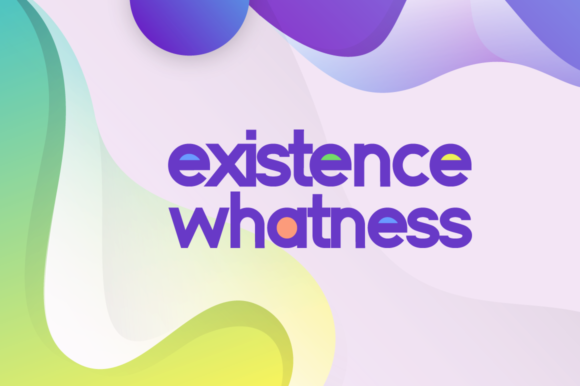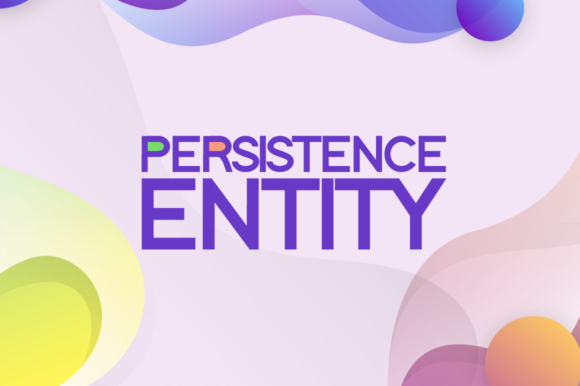
Introducing Breath Font: The Cute and Modern Display Font for Creative Projects
Are you a designer, crafter, or DIY enthusiast looking for a font that can add a touch of friendliness and modernity to your creative projects? Look no further than Breath Font! This adorable display font is perfect for a wide range of applications, from Instagram posts and social media graphics to calligraphy scripts and handmade crafts.
What is Breath Font?
Breath Font is a carefully crafted display font that exudes a sense of friendliness and approachability. Its modern design and cute aesthetic make it an ideal choice for anyone looking to add a personal touch to their creative projects. Whether you’re a professional designer or a crafty DIY enthusiast, Breath Font is sure to inspire your next creative endeavor.
Key Features of Breath Font
- Cute and Modern Design: Breath Font boasts a unique and modern design that is sure to capture the attention of your audience.
- Friendliness and Approachability: The font’s friendly feel makes it perfect for creating a connection with your audience.
- Versatility: Breath Font can be used for a wide range of creative projects, from social media graphics and Instagram posts to calligraphy scripts and handmade crafts.
- Ease of Use: The font is easy to read and works well in both digital and print formats.
Perfect for Instagram and Social Media Graphics
In today’s digital age, having eye-catching social media graphics is crucial for standing out from the crowd. Breath Font is the perfect choice for creating stunning Instagram posts, Facebook graphics, and other social media visuals. Its modern design and friendly feel will help you connect with your audience and make your content more engaging.
Ideal for Calligraphy Scripts and DIY Projects
If you’re a crafty DIY enthusiast, you’ll love Breath Font for your calligraphy scripts and handmade crafts. The font’s unique design and friendly feel make it perfect for creating beautiful and personalized gifts, decorations, and other craft projects.
Why Choose Breath Font?
With so many fonts available, why choose Breath Font? Here are just a few reasons:
- Unique Design: Breath Font has a one-of-a-kind design that will set your creative projects apart from the rest.
- High-Quality: The font is carefully crafted to ensure high-quality and consistency.
- Versatile: The font can be used for a wide range of creative projects, from digital to print.
Tips for Using Breath Font
Here are a few tips for getting the most out of Breath Font:
- Experiment with Different Sizes: Breath Font looks great in a variety of sizes, from small and delicate to large and bold.
- Pair with Other Fonts: Try pairing Breath Font with other fonts to create a unique and eye-catching combination.
- Use for Headings and Titles: Breath Font is perfect for headings and titles, adding a touch of friendliness and modernity to your creative projects.
Breath Font is a versatile and modern display font that is perfect for designers, crafters, and DIY enthusiasts. Its cute and friendly design makes it ideal for a wide range of creative projects, from social media graphics and Instagram posts to calligraphy scripts and handmade crafts. With its high-quality design, ease of use, and versatility, Breath Font is sure to become a favorite in your creative arsenal.